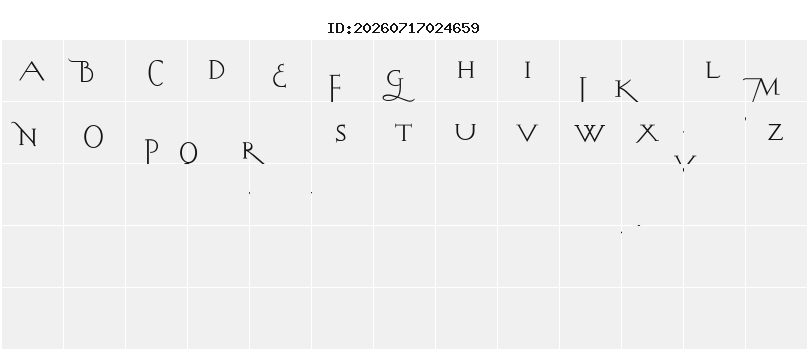
ABC-LongLegs Preview
• Font Name: ABC-LongLegs
About ABC-LongLegs.ttf
ABC-LongLegs.ttf is a modern, elegant sans-serif font designed for ultimate readability and visual harmony. Perfect for branding, headlines, web design, and print materials.